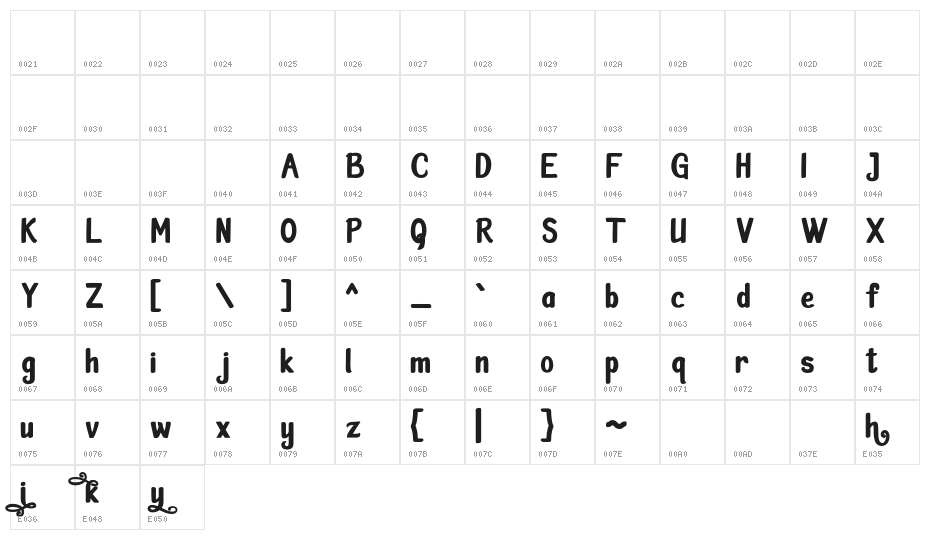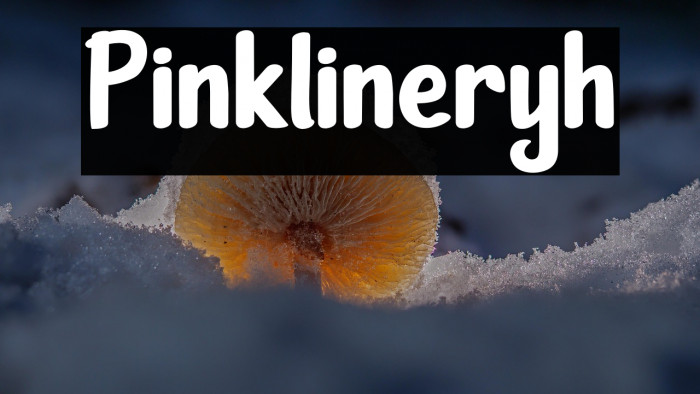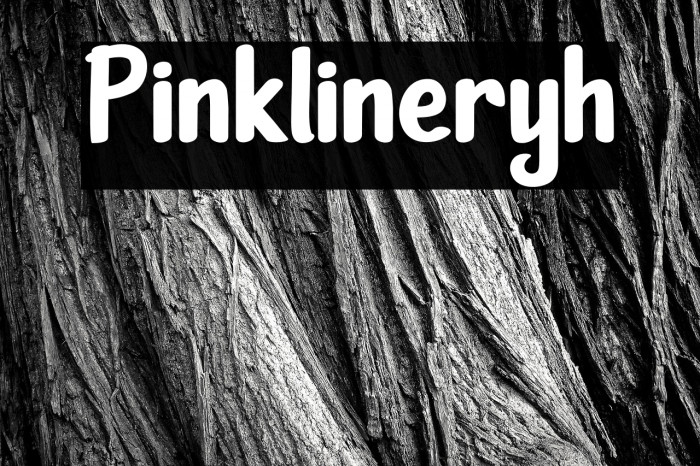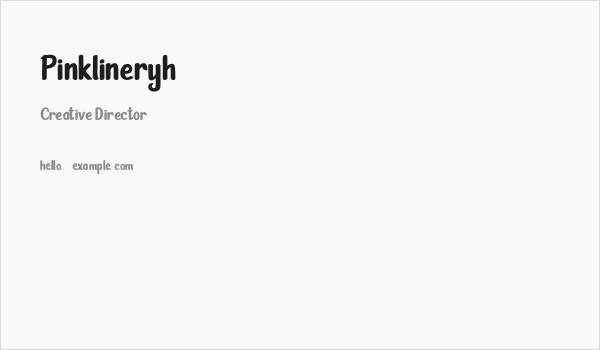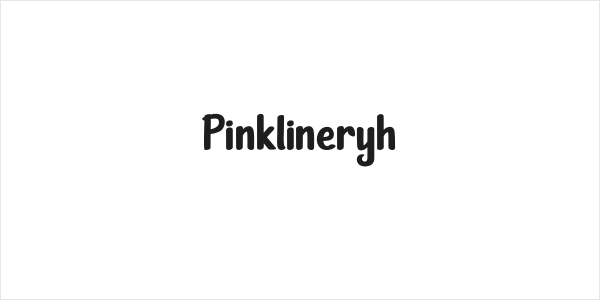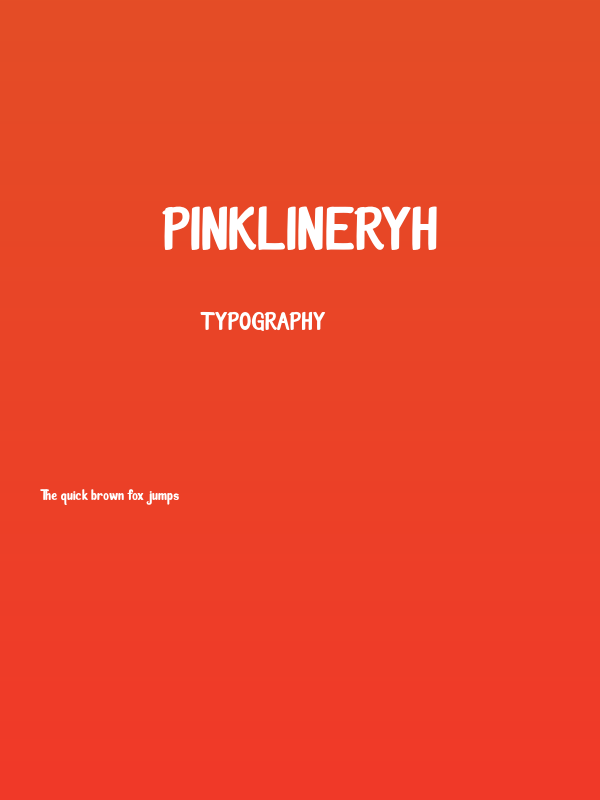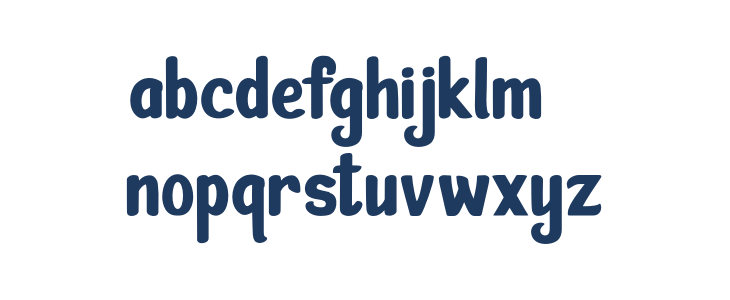
Pinklineryh Font
Pinklineryh Description
This font features a playful and bold style with rounded edges and a slightly irregular form that gives it a hand-drawn appearance. The uppercase letters are uniformly bold, while the lowercase letters maintain a consistent weight, adding to the font's cohesive look. The characters are well-spaced, ensuring readability while maintaining a casual and friendly vibe. The numerals and special characters follow the same design principles, making the font versatile for various uses. Its unique style makes it stand out, yet it remains legible and approachable.
| Proposed Projects | Ideal for children's books, playful branding, posters, and social media graphics. |